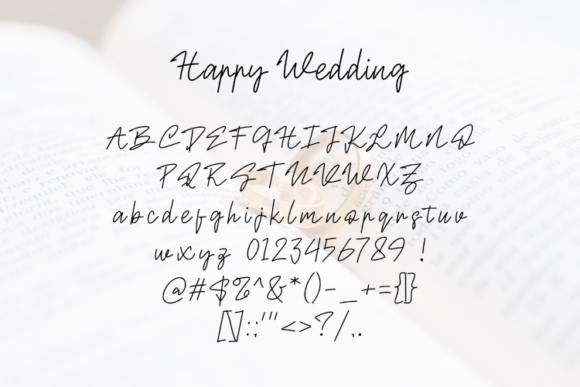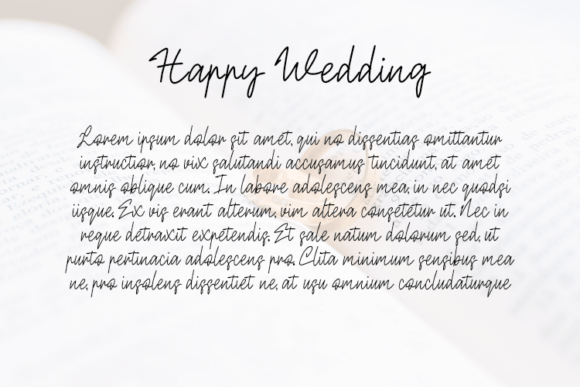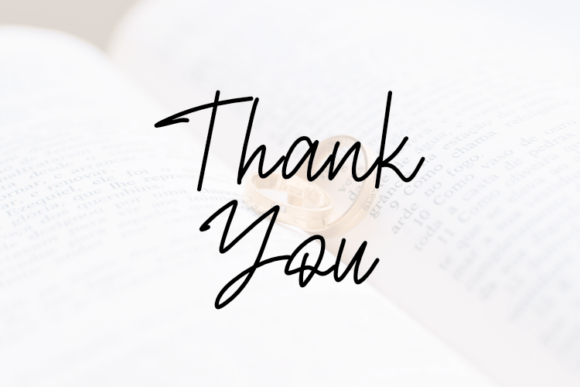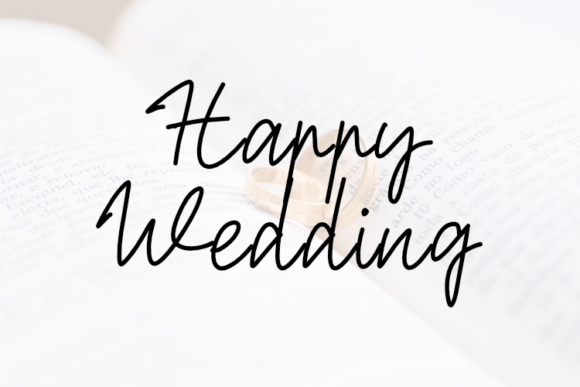
Introducing Happy Wedding Font: The Perfect Blend of Playfulness and Sophistication
Are you a designer or crafter looking for a font that can add a touch of joy and elegance to your projects? Look no further than the Happy Wedding font. This versatile and charming font is perfect for bringing life to clothing designs, t-shirt artwork, and a wide range of other products. With its universal adaptability and effortless usability, Happy Wedding is the essential font for all your creative endeavors.
A Font that Combines Playfulness and Sophistication
The Happy Wedding font boasts a unique blend of playfulness and sophistication, making it an ideal choice for designers and crafters who want to add a personal touch to their work. Its playful charm is perfect for creating fun and lively designs, while its sophisticated undertones ensure that your projects exude elegance and refinement. Whether you’re working on a children’s party invitation or a high-end fashion brand, Happy Wedding is the perfect font to bring your vision to life.
Endless Possibilities for Creative Projects
The Happy Wedding font is perfect for a wide range of creative projects, from clothing designs and t-shirt artwork to party invitations, signage, and more. Its versatility and charm make it an excellent choice for designers and crafters who want to add a personal touch to their work. Whether you’re creating products for a craft fair, designing branding materials for a business, or working on a personal project, Happy Wedding is the perfect font to bring your vision to life.
Key Features of Happy Wedding Font
- Playful yet sophisticated charm: Happy Wedding boasts a unique blend of playfulness and sophistication, making it perfect for a wide range of design projects.
- Perfect for clothing designs and t-shirt artwork: Happy Wedding is ideal for adding a touch of joy and elegance to clothing designs and t-shirt artwork.
- Suitable for a wide range of creative projects: This font is perfect for party invitations, signage, branding materials, and more.